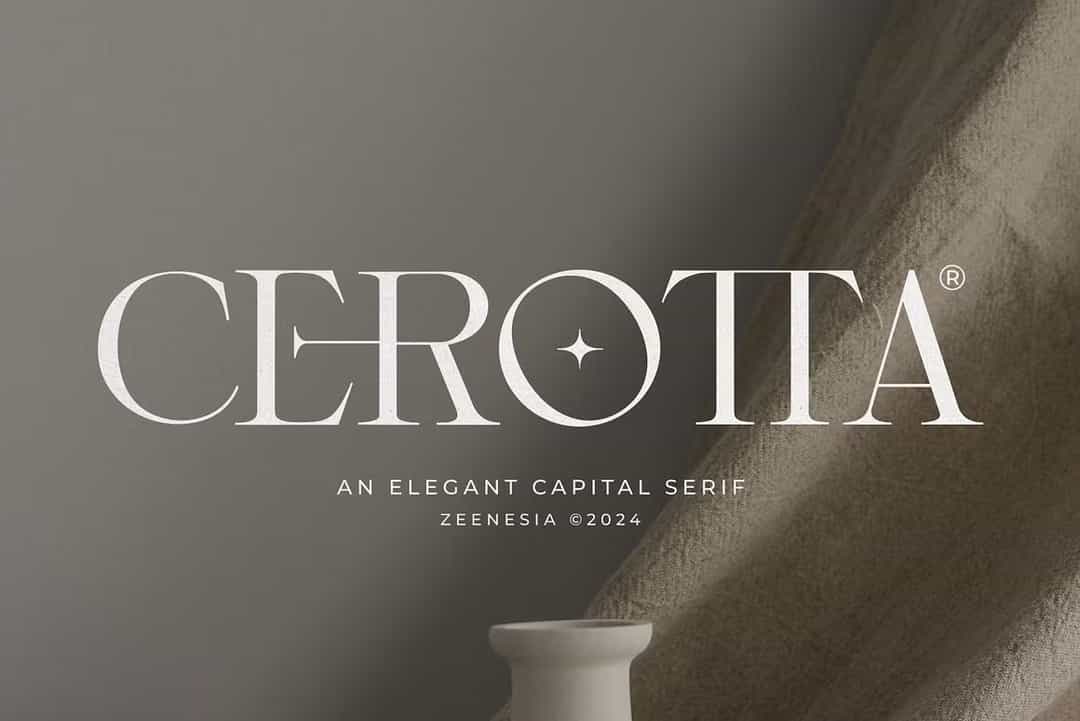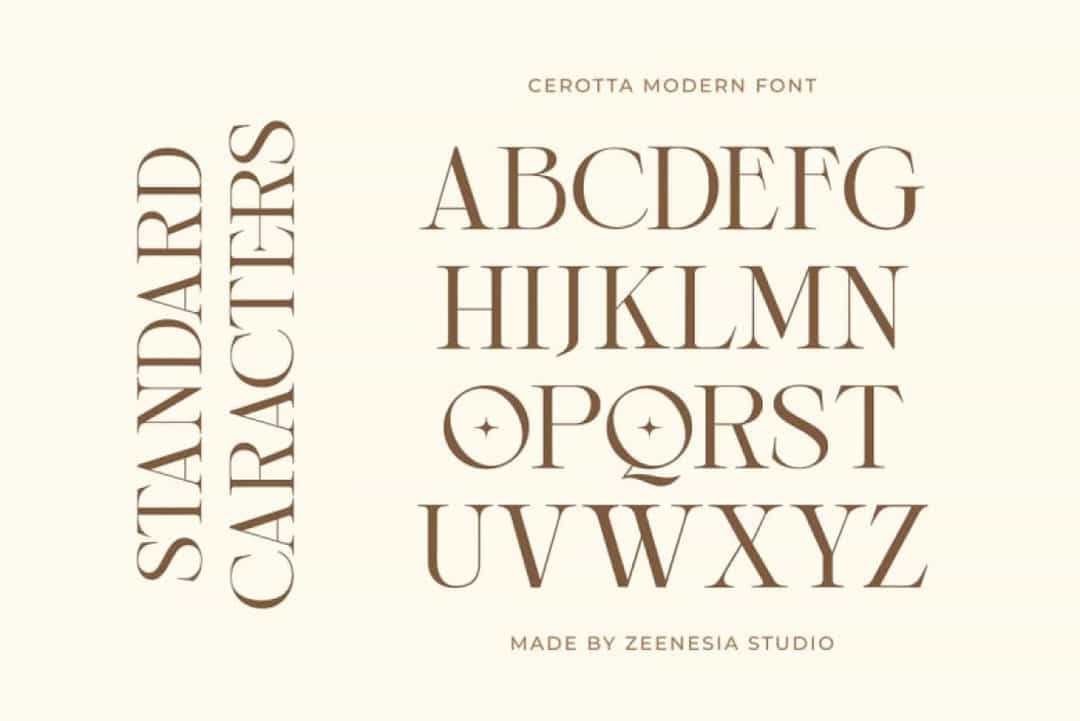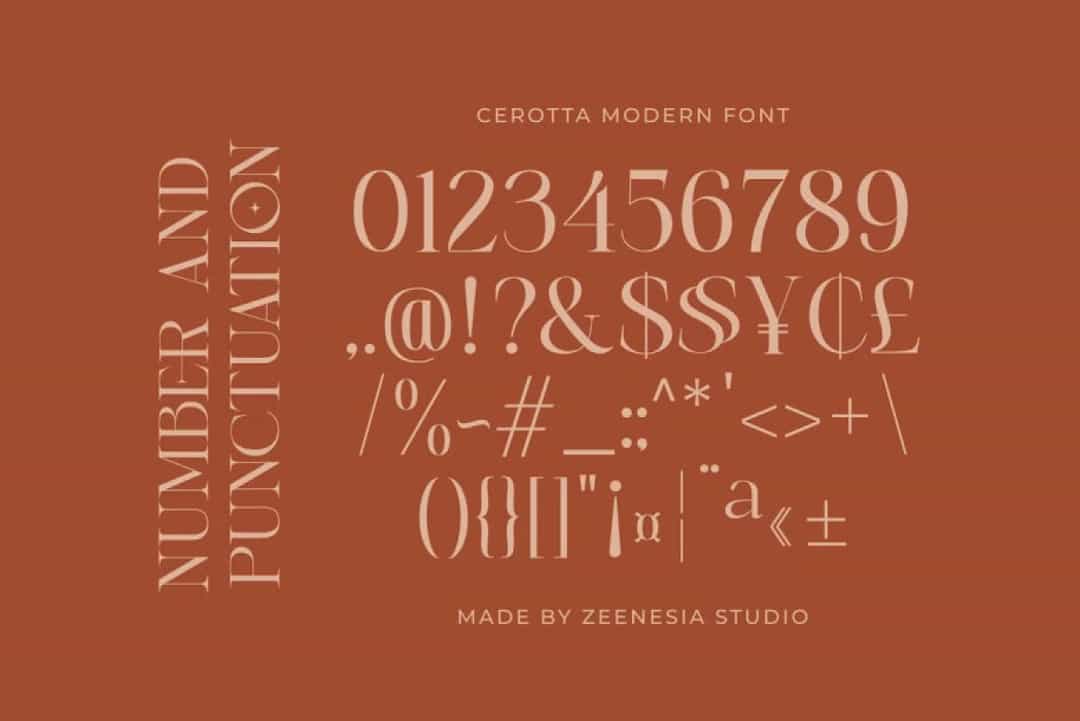
Cerotta Font is a classic serif font with romantic overtones. I used natural ligatures to craft an elegant font which can make any poster or invitation stand out – perfect as wedding invites! Logotypes, branding items and greeting cards often utilize this font with PUA as its encoder to quickly access all its glyphs and Swashes!